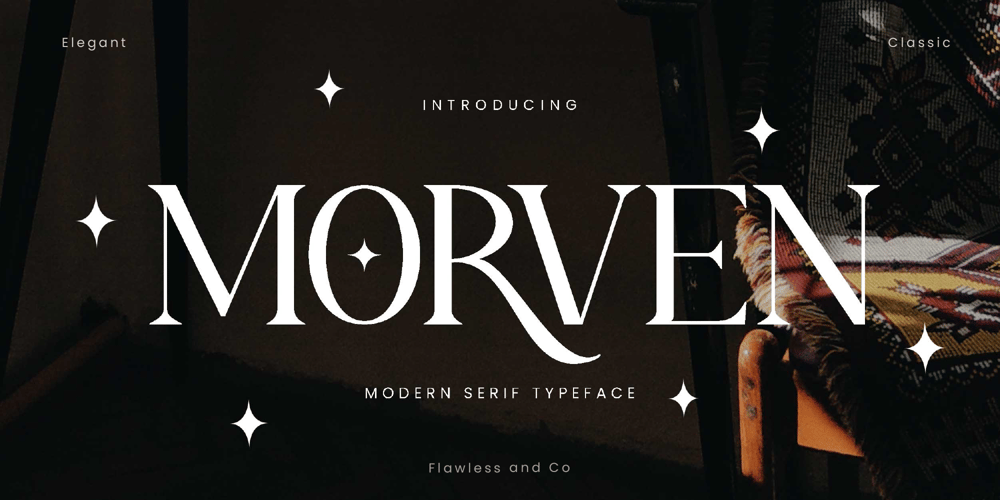
Morven
Morven font
Morven Font Family was designed by Achmad Yani and published by Flawlessandco. Morven contains 1 styles and family package options. Morven is a modern serif font with a classic and elegant typeface. This versatile font is perfect for a variety of design projects, from branding and advertising to editorial layouts and more. An Original typeface that suitable for any graphic designs such as branding materials, t-shirt, print, business cards, logo, poster, t-shirt, photography, quotes .etcThis font support for some multilingual. Modern Sweet Retro that contains uppercase A-Z and lowercase a-z, alternate character, numbers 0-9, and some punctuation.If you need help, just write me! Thanks so much for checking out my shop!